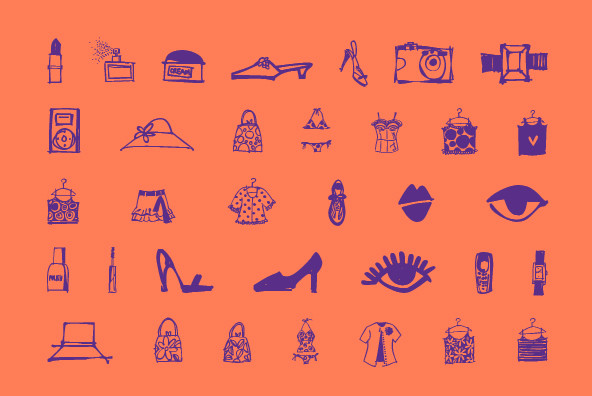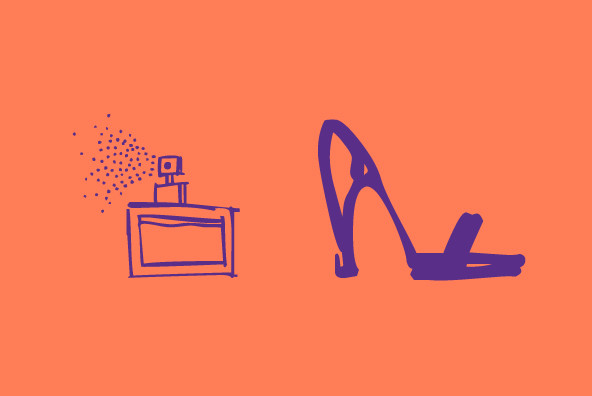
Diva Doodles Diva Doodles
Diva Doodles is a clipart font with 40 pictures of girl things such as lipstick, nail polish, perfume, shoes, hats, jewelry, camera, iPod, purses, shirts, skirts and a pair of p.js. If you love the other Doodles fonts you'll like this one too.